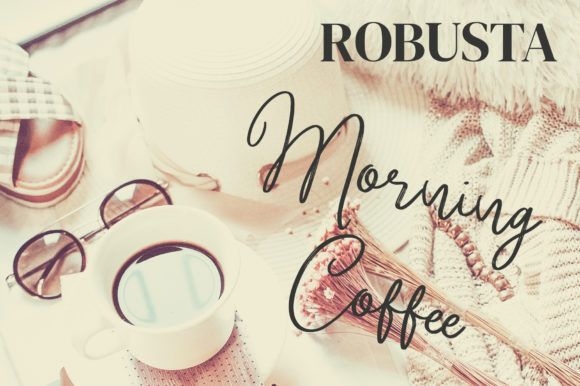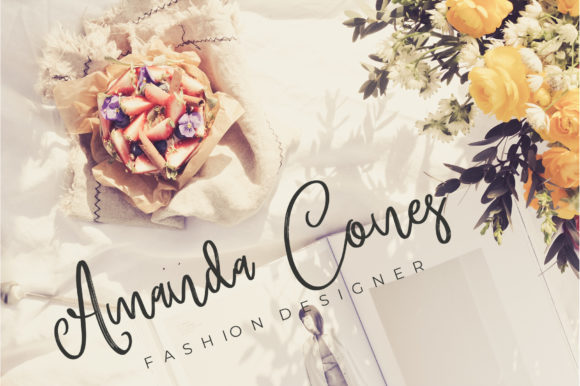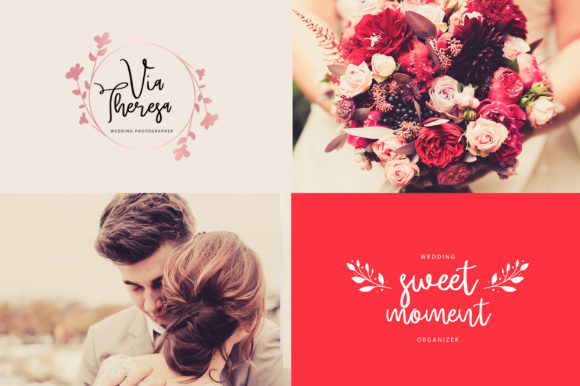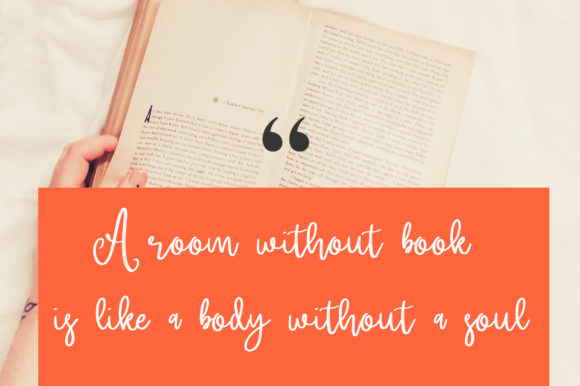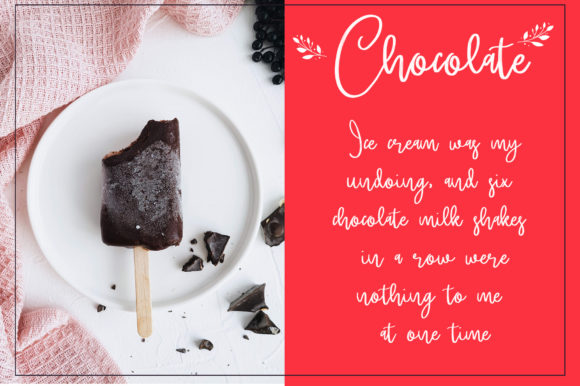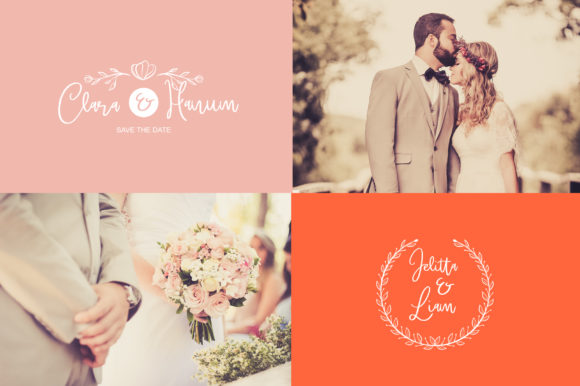
The Brittney Font: A Modern Calligraphy Marvel
I’ll never forget the time I was working on a wedding invitation project, and my client asked for a font that was both elegant and modern. I scoured the internet, tried out dozens of fonts, but nothing seemed to fit the bill. That was until I stumbled upon Brittney, a lovely modern calligraphy font that combines the classic look of calligraphy with a more modern style. ✨
• ✨ Elegant and sophisticated: Brittney has a classic, timeless feel that’s perfect for high-end projects.
• ✅ Highly versatile: This font can be used for everything from wedding invitations to branding and packaging.
• 🎉 Modern and fresh: Brittney has a unique, modern twist that sets it apart from more traditional calligraphy fonts.
• 💻 Works well in digital formats: Brittney looks great in both print and digital formats, making it perfect for a wide range of projects.
While Brittney is an amazing font, there are a few things to keep in mind. 🤔
• ⚠️ Limited character set: Like many calligraphy fonts, Brittney has a limited character set, which can make it difficult to use for body text.
• ⚠️ May not work well in small sizes: Brittney is designed to be used in larger sizes, and may not be legible in smaller sizes.
The Designer Inspiration Behind Brittney
While the true story behind Brittney’s design is unknown, it’s easy to imagine that the designer was inspired by the world of high-end fashion and luxury branding. 💃 With its elegant lines, flowing curves, and modern twist, Brittney is the perfect font for designers who want to add a touch of sophistication to their projects.
What type of projects is Brittney best suited for? Brittney is perfect for high-end projects, such as wedding invitations, luxury branding, and packaging.
Can I use Brittney for body text? While Brittney is beautiful, it’s not designed for body text. It’s best used for headings, titles, and other display text.
Is Brittney a script font? While Brittney has some script-like qualities, it’s technically a calligraphy font.